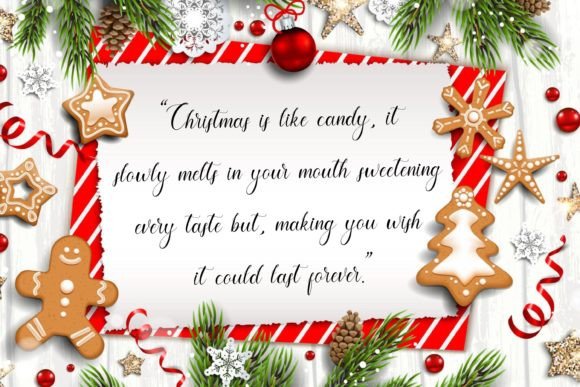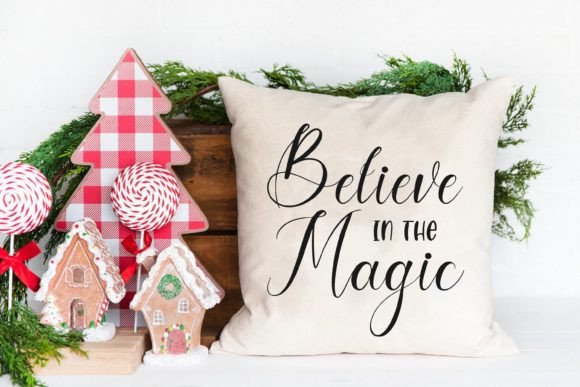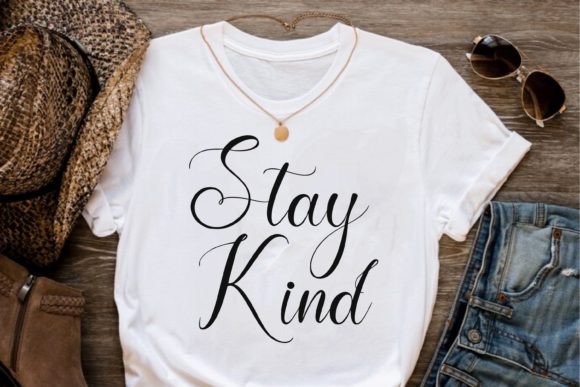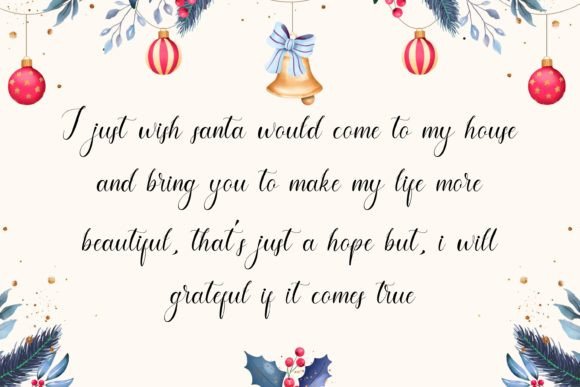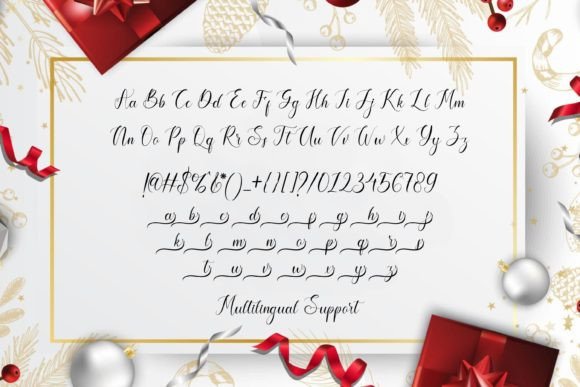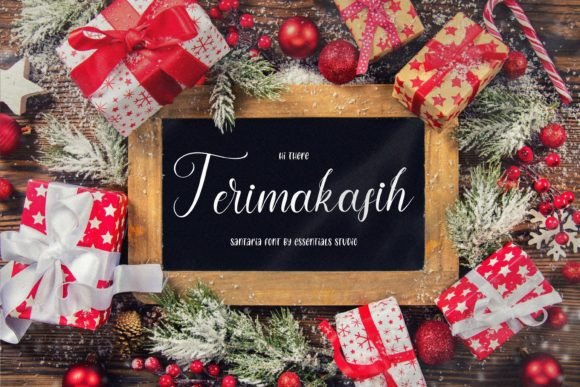
Santaria Font
Delicate Handwritten Script for Artistic and Elegant Designs
If you’re searching for a font that brings elegance and authenticity to your work, look no further than Santaria. This delicate handwritten script font has been carefully crafted to turn your creative concepts into visually stunning results. With its graceful flow and personal touch, Santaria helps you communicate beauty and emotion through design.
Whether you’re creating for business, events, or personal expression, Santaria delivers both sophistication and warmth.
Meet Santaria: Graceful, Refined, and Highly Usable
Santaria features smooth curves, well-balanced spacing, and a natural rhythm that feels handwritten yet refined. It’s stylish without being overwhelming, which makes it perfect for a wide range of creative applications. As a result, this delicate handwritten script can elevate your message while keeping your designs inviting and readable.
Here are just a few ways to use Santaria:
• Wedding invitations and save-the-dates
• Feminine branding and boutique logos
• Social media quote graphics
• Elegant product packaging and tags
• Journals, planners, and printable art
• Greeting cards and blog headers
Its subtle charm ensures your design feels both personal and professional.
Even better, Santaria is PUA encoded, which means you get full access to all glyphs, swashes, and alternate characters — no need for extra software or technical skills. That makes it ideal for designers at any level.
Why Creatives Choose Santaria
Santaria isn’t just pretty — it’s practical too. Here’s why designers love working with it:
• Elegant handwritten style with graceful movement
• Clean and legible across sizes and formats
• PUA encoded for maximum creative access
• Easy to use with any design platform
• Great for both print and digital media
This delicate handwritten script helps you make an impression while keeping your message clear and tasteful.
Perfect for Weddings, Brands, and Personal Projects
Whether you’re a professional designer or a creative hobbyist, Santaria adds a refined, custom feel to your work. It’s especially useful for:
• Bridal or lifestyle branding
• Personalized gift tags and stationery
• Etsy shop headers or packaging
• Instagram highlight covers and quotes
• Artistic journals or digital downloads
Because of its soft lines and balanced structure, it works beautifully in elegant or romantic contexts without feeling too formal.
Santaria is a true expression of delicate design. With its flowing letterforms and thoughtful curves, it adds meaning and beauty to any visual project. This delicate handwritten script is more than just a font — it’s a creative asset that brings your ideas to life with elegance and personality.